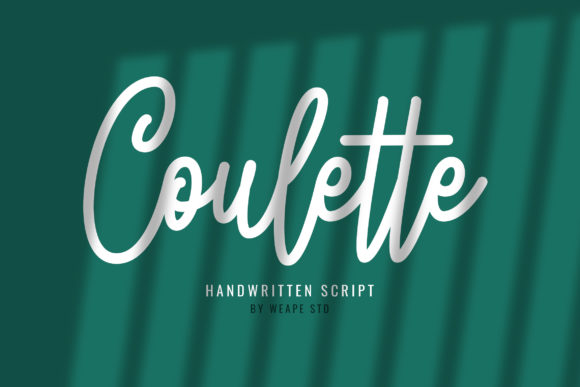
Coulette Font: Elevate Your Designs with Elegance and Timeless Style
Are you on the hunt for a font that exudes elegance, sophistication, and a touch of timeless charm? Look no further than the stunning Coulette font. This beautiful, flowing handwritten font is designed to add a touch of refinement to your favorite projects, making it perfect for designers and crafters alike. In this article, we’ll dive into the world of Coulette font, exploring its unique features, and how you can harness its power to create breathtaking designs.
The Essence of Coulette Font
Coulette font is a masterpiece of typographic design, boasting an elegant touch that sets it apart from other fonts. Its flowing, handwritten style is characterized by smooth lines, gentle curves, and a sense of fluidity that makes it a joy to behold. This font is the epitome of sophistication, making it an excellent choice for projects that demand a high level of refinement.
Distinct and Timeless Style
One of the standout features of Coulette font is its incredibly distinct and timeless style. Unlike trendy fonts that may quickly go out of style, Coulette’s classic design ensures that your projects will remain relevant for years to come. Its unique character set, complete with subtle variations in line width and delicate flourishes, adds a level of depth and visual interest that’s hard to find in more generic fonts.
Coulette font is incredibly versatile, making it suitable for a wide range of projects. Whether you’re designing:
- Web graphics and social media assets
- Print materials, such as brochures and posters
Coulette font is the perfect choice. Its elegant style and flowing lines make it an excellent fit for projects that require a touch of sophistication and refinement.
Why Designers and Crafters Love Coulette Font
So, what makes Coulette font so special? Here are just a few reasons why designers and crafters are falling in love with this beautiful font:
- Ease of use: Coulette font is incredibly easy to read and work with, making it perfect for designers of all skill levels.
- Flexibility: With a range of weights and styles to choose from, Coulette font can be adapted to suit a wide range of projects and design applications.
- Uniqueness: Coulette font’s distinct style ensures that your projects will stand out from the crowd, making it perfect for designers looking to create something truly special.
Tips for Getting the Most Out of Coulette Font
To truly harness the power of Coulette font, here are a few tips to keep in mind:
- Experiment with different weights: Coulette font comes in a range of weights, from light to bold. Experiment with different weights to find the perfect fit for your project.
- Pair with complementary fonts: Coulette font pairs beautifully with a range of other fonts. Try pairing it with a clean sans-serif font for a striking contrast.
- Use it sparingly: While Coulette font is incredibly beautiful, it’s best used sparingly. Try using it for headings or titles, and a more straightforward font for body text.
In conclusion, Coulette font is a stunning, flowing handwritten font that’s perfect for designers and crafters looking to add a touch of elegance and sophistication to their projects. With its incredibly distinct and timeless style, Coulette font is sure to become a favorite in your design arsenal. So why wait? Fall in love with Coulette font today, and start creating spectacular designs that will leave a lasting impression.